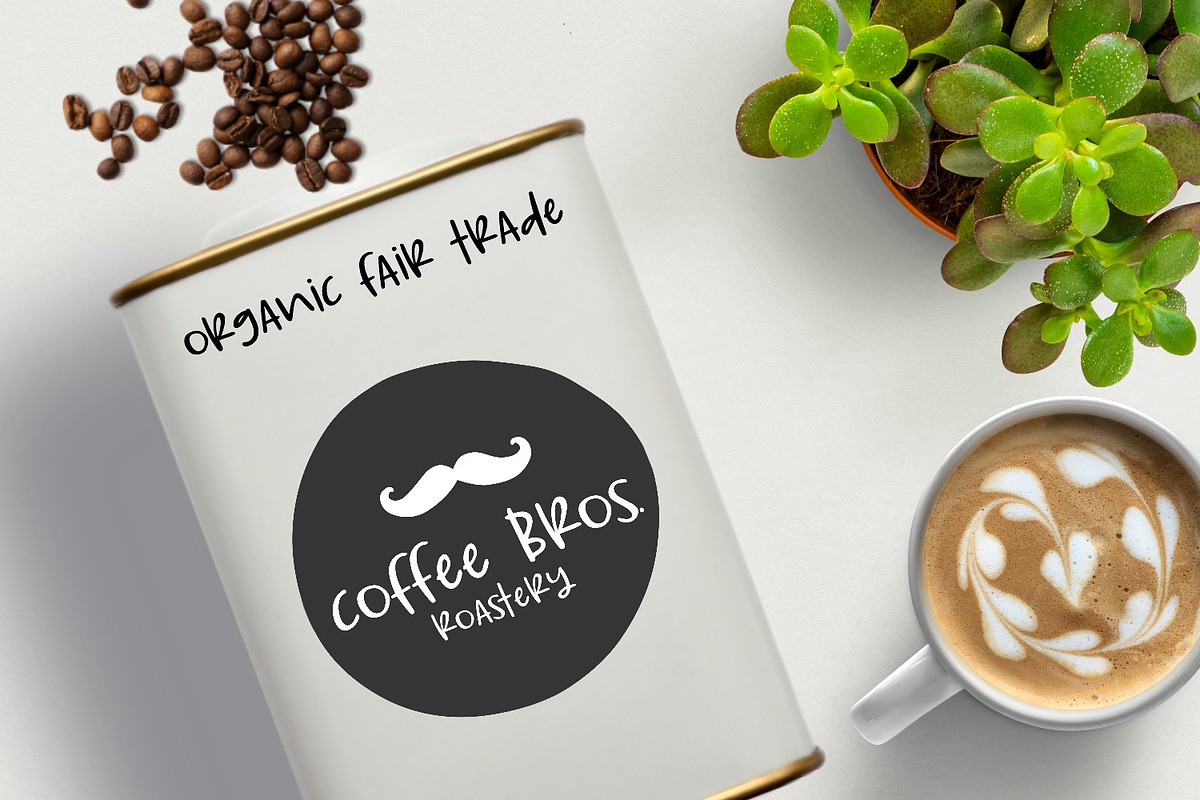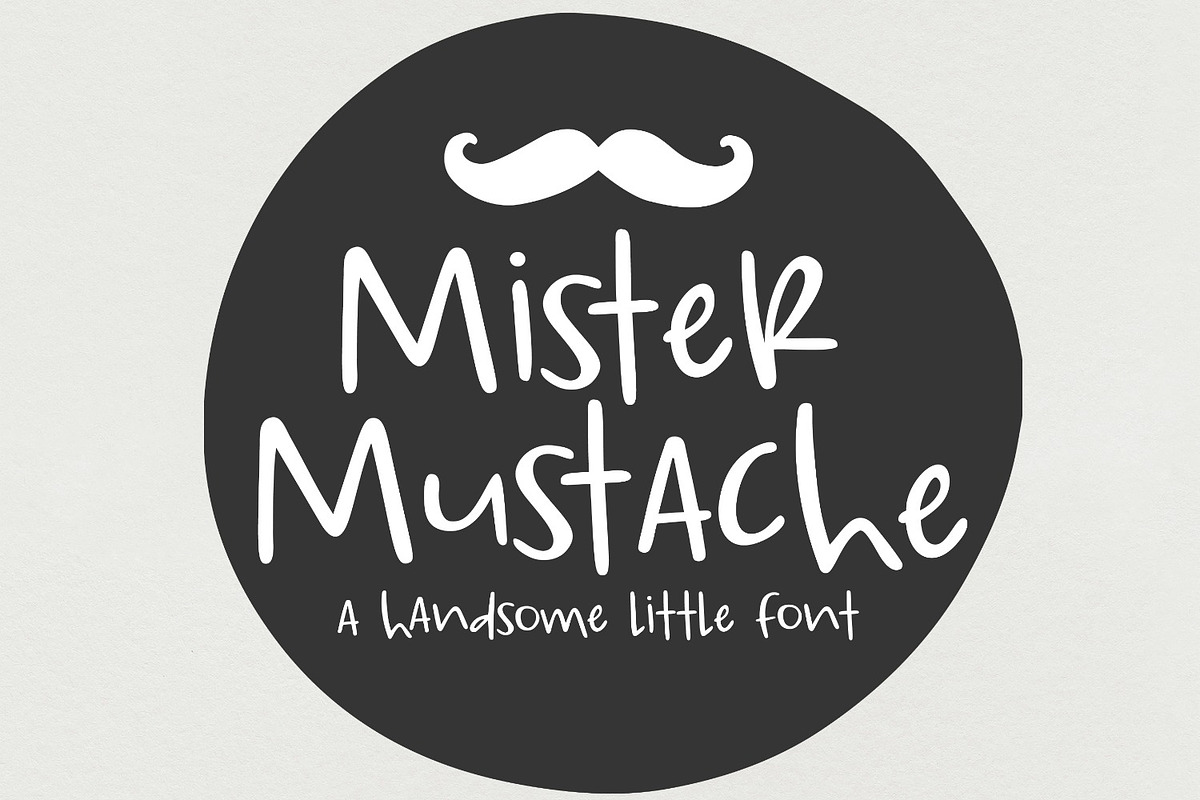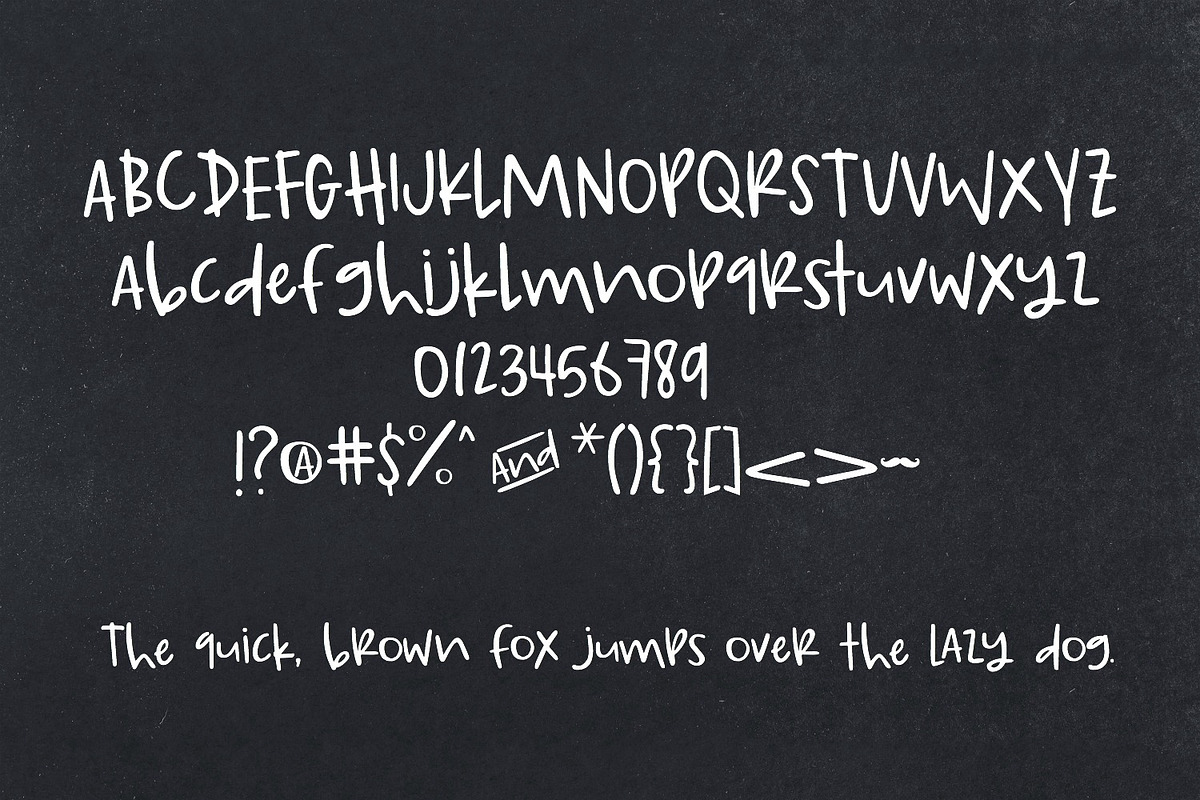
NEW Font!! Mister Mustache
Meet Mister Mustache! This handsome handwritten font is burning with handwritten charm and personality. It includes a few ligatures and supports most Western European languages.
PLUS: Use the | (bar symbol) to access the cute little mustache graphic!
- It includes a few ligatures and supports most Western European languages.
NEW Font!! Mister Mustache by Sabrina Schleiger Design fits naturally into Branding, posters, packaging, typography.